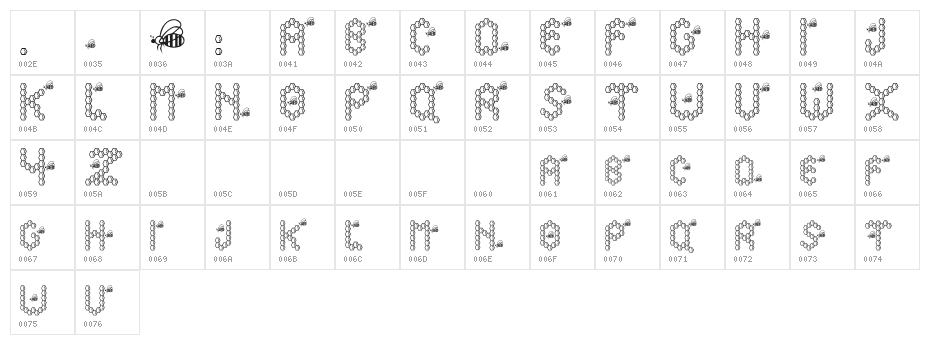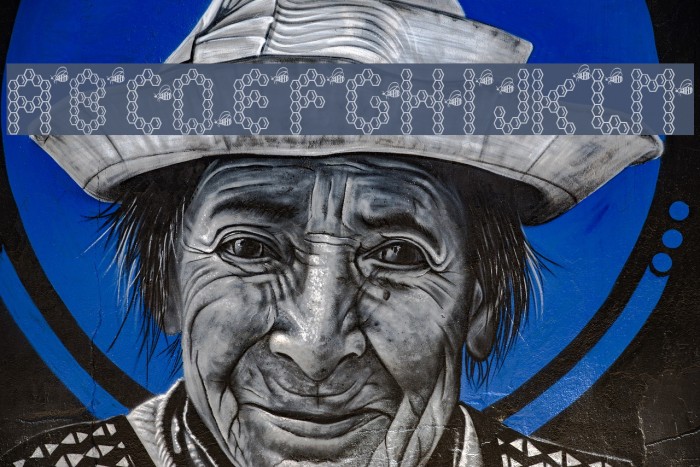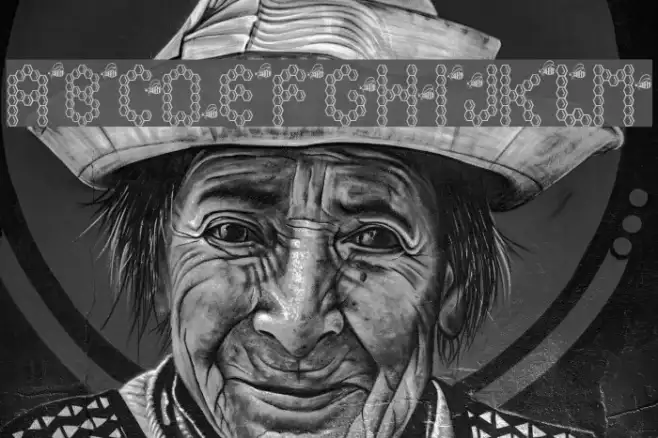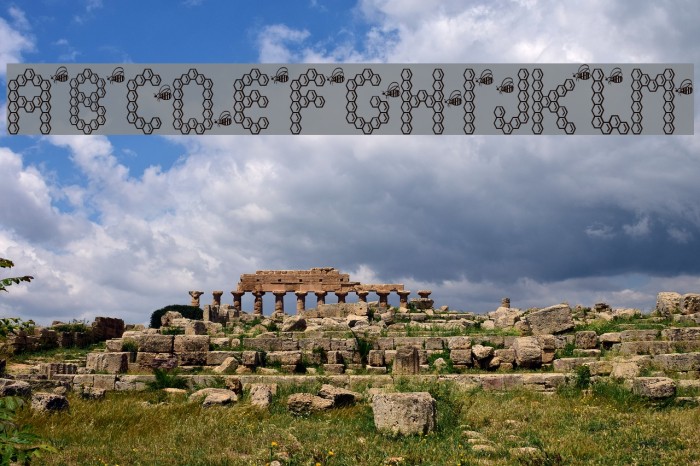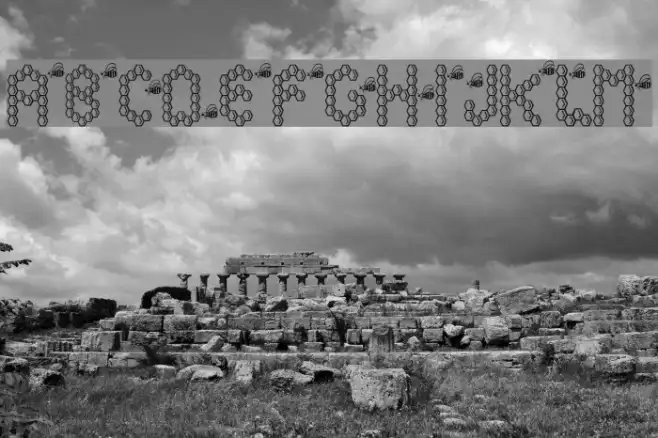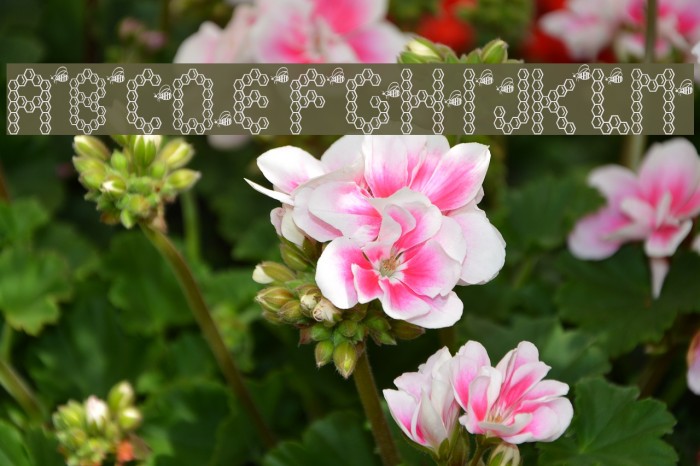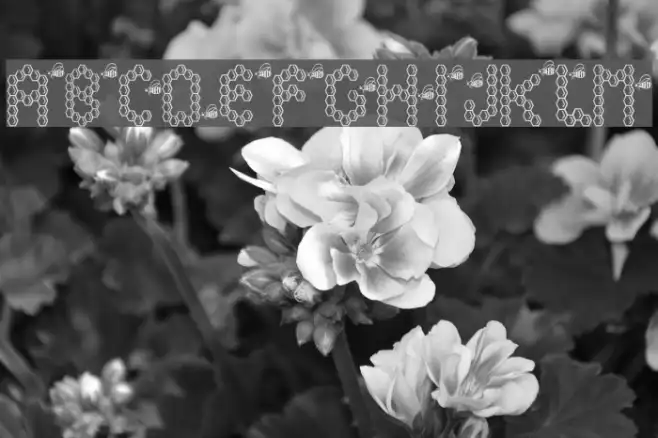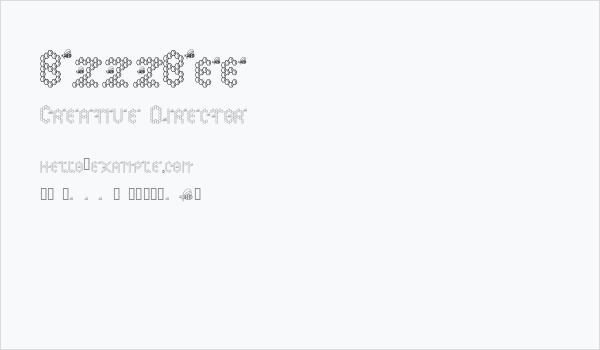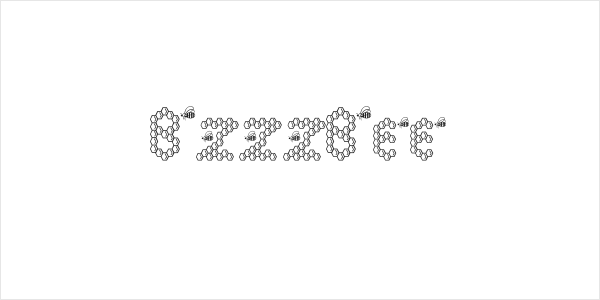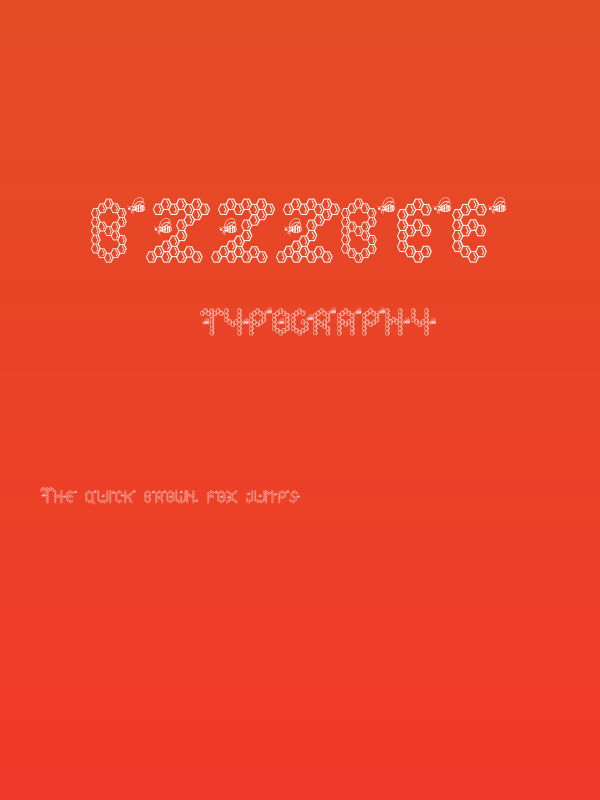
BzzzBee Font
BzzzBee Description
This playful and decorative font is designed with a unique honeycomb pattern, incorporating small bee illustrations within each letter. The characters are formed by hexagonal shapes, giving a whimsical and nature-inspired aesthetic. The font is highly detailed, with each letter featuring intricate designs that mimic the structure of a beehive. This creative approach makes it stand out as a fun and engaging typeface, perfect for projects that aim to capture attention with a lively and thematic style.
| Proposed Projects | Ideal for children's books, environmental campaigns, themed party invitations, or any project that requires a playful and nature-inspired design. |